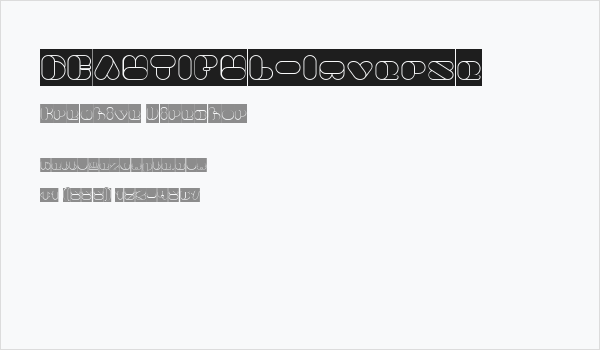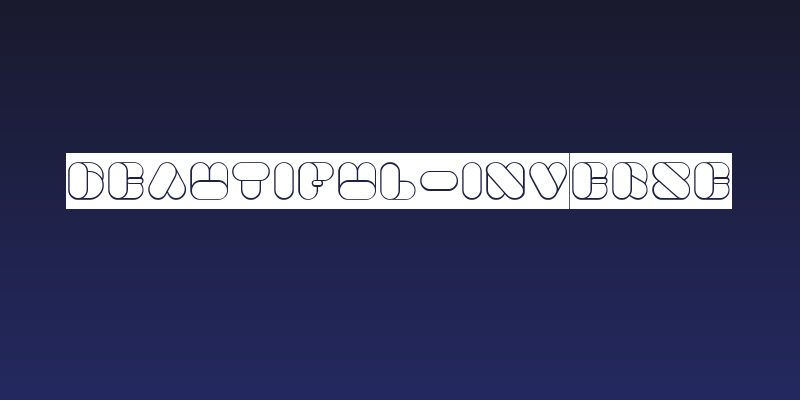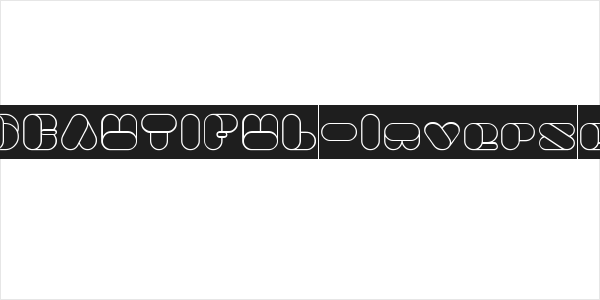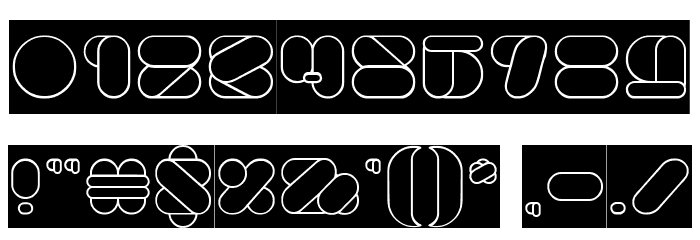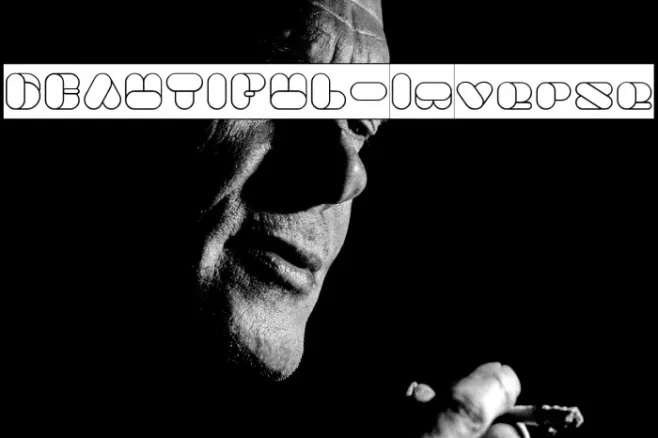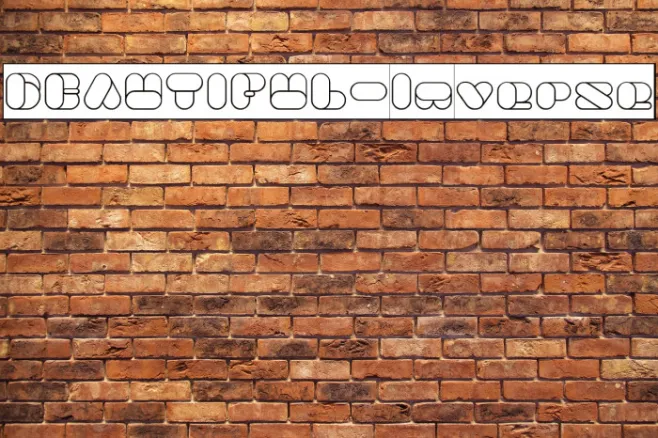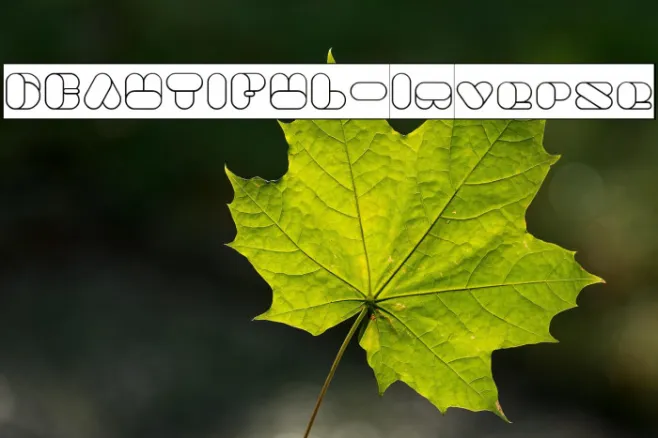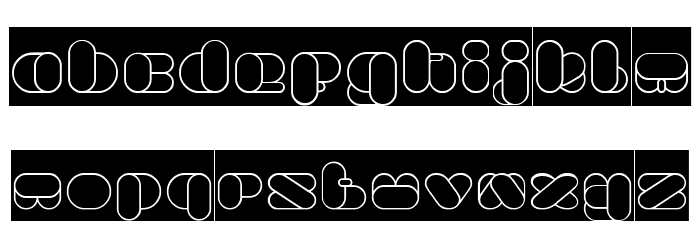
BEAUTIFUL-Inverse Font
BEAUTIFUL-Inverse Description
This font features a unique and modern design with letters formed by continuous, looping lines that create a sense of movement and fluidity. The characters are bold and eye-catching, making them ideal for display purposes. The uppercase and lowercase letters maintain a consistent style, with rounded edges and a geometric structure. Numbers and special characters follow the same design principles, ensuring uniformity across all glyphs. The overall look is playful yet sophisticated, suitable for creative projects that require a distinctive visual impact.
| Proposed Projects | Ideal for branding, posters, album covers, and any project needing a standout, artistic font. |